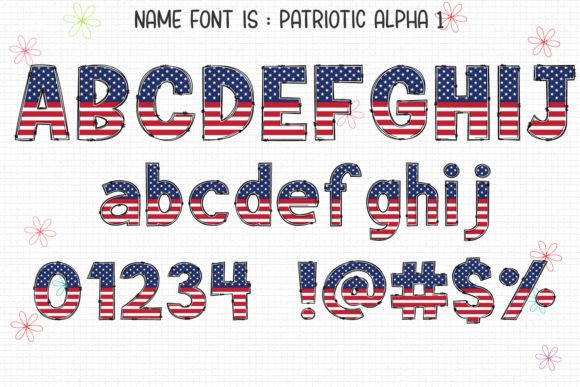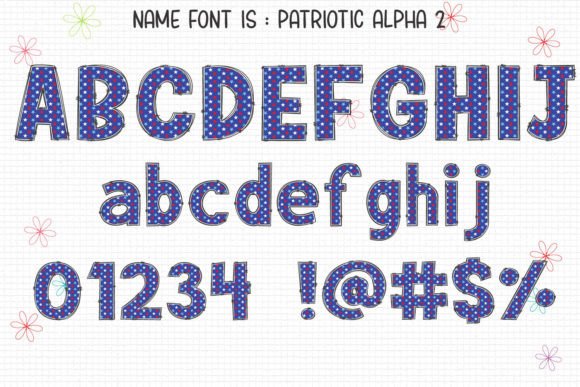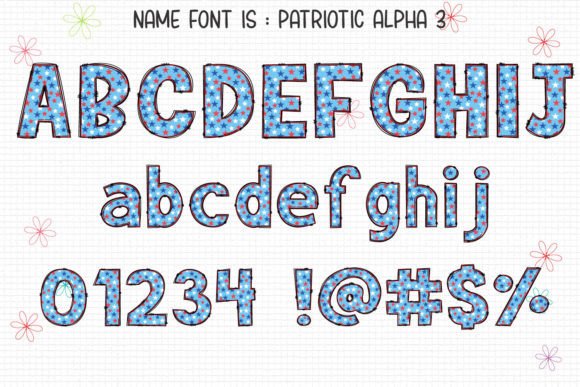
Introduction to Patriotic Alpha Font
Have you ever stared at a blank canvas, wondering where to start your next creative project? The moment of silence, the spark of inspiration, and the rush of ideas – it’s a feeling that designers know all too well. For those seeking the perfect font to bring their vision to life, we’re excited to introduce you to the Patriotic Alpha Font, a modern display font that’s sure to make your designs stand out.
This high-quality font is more than just a design resource – it’s a tool to help you convey your message with confidence. Whether you’re creating eye-catching posters, unique merchandise, or packaging that pops, the Patriotic Alpha Font is the perfect companion for any creative endeavor.
Key Features of Patriotic Alpha Font
- Unique Patriotic Design: This font features a distinctive, bold, and eye-catching design that is perfect for patriotic-themed creative projects.
- Transparent Background: The font has a transparent background, making it ideal for use on images or videos with complex backgrounds.
- High-Quality Design: The font is designed with high-quality graphics, ensuring that it looks great on a variety of devices and screen resolutions.
- Perfect Design Resource: The Patriotic Alpha Font is a great addition to any designer’s collection, offering a unique and creative design element for use in a variety of design projects.
Honest Review: Patriotic Alpha Font
The font itself is a high-quality design resource, perfect for creating a bold and eye-catching look for your creative project. The transparent background allows for seamless integration with other design elements, making it a versatile choice for various design applications.
- ⚠️ Limited customization options
- ⚠️ May not be suitable for all design styles
Overall, I’m impressed with the Patriotic Alpha Font. It’s a solid design resource that’s perfect for designers looking for a bold and eye-catching font. While it may have some limitations, it’s definitely worth considering for your next creative project.
The Patriotic Alpha Font is perfect for various patriotic-themed projects, such as Independence Day celebrations, Memorial Day tributes, or Veterans Day honors. You can also use it to create designs for patriotic events, such as parades or fireworks displays.